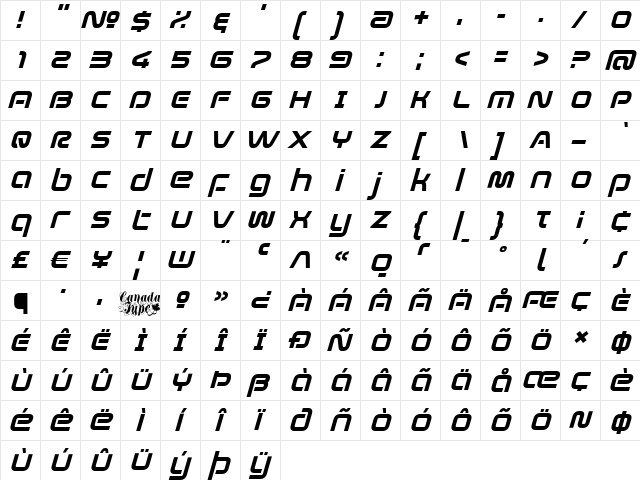
Evolver Italic
| Foundry | Canada Type |
| Designer | Rebecca Alaccari |
Design Context for Evolver Typeface
Evolver offers clean, dependable letterforms without strong stylistic allegiance, making it a practical choice for designers who need flexibility. The dynamic lean of this cut emphasises speed and emphasis in any layout.
Pro Tip: Use Evolver for emphasis, pull quotes, and subheadings where its slanted energy can add rhythm to the layout.